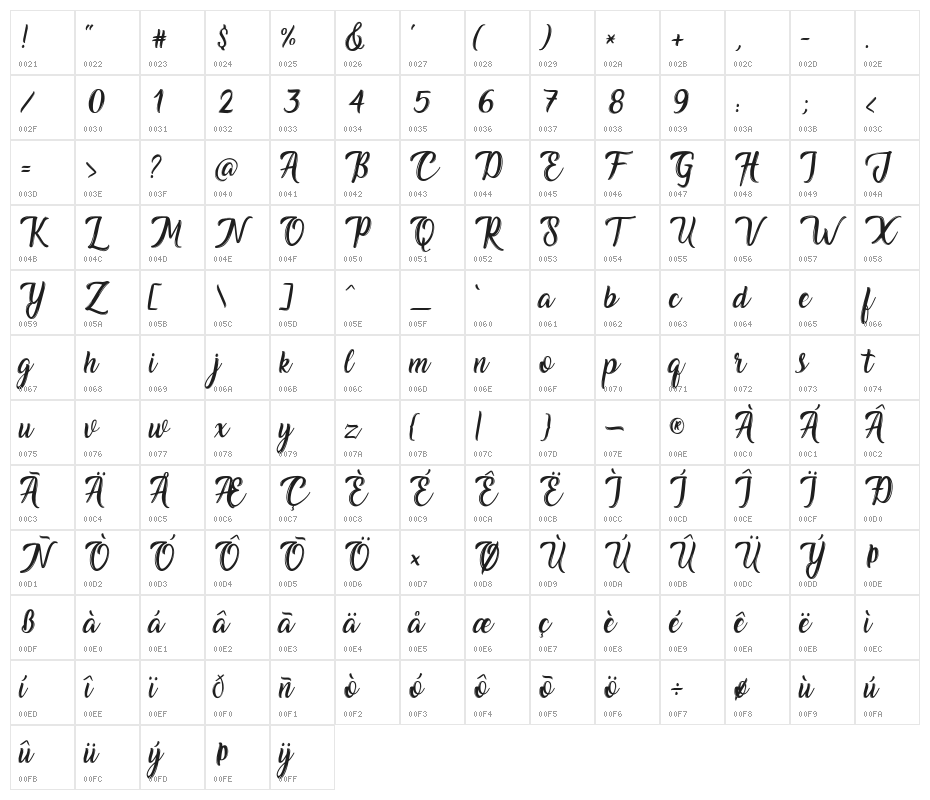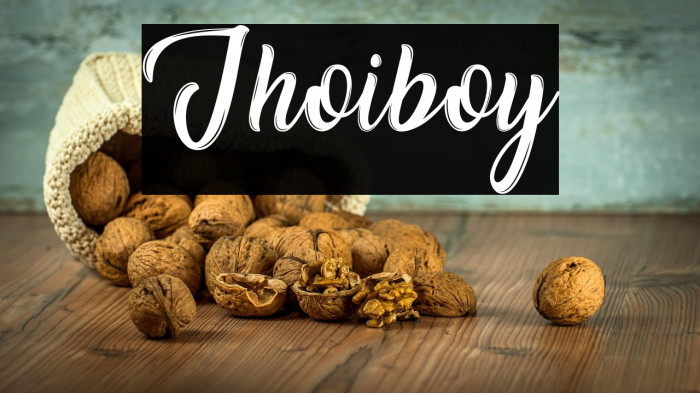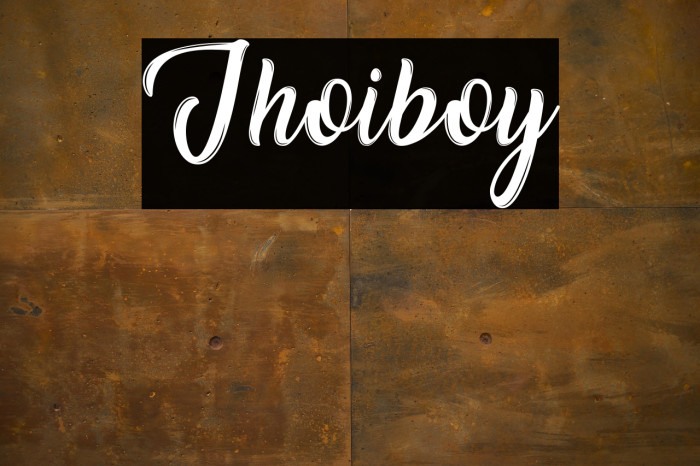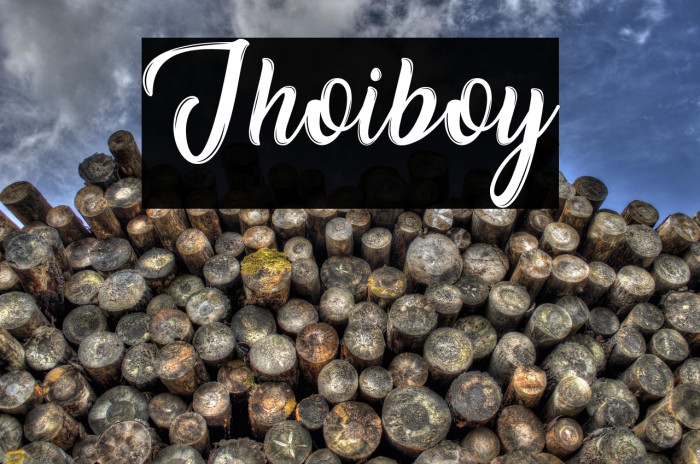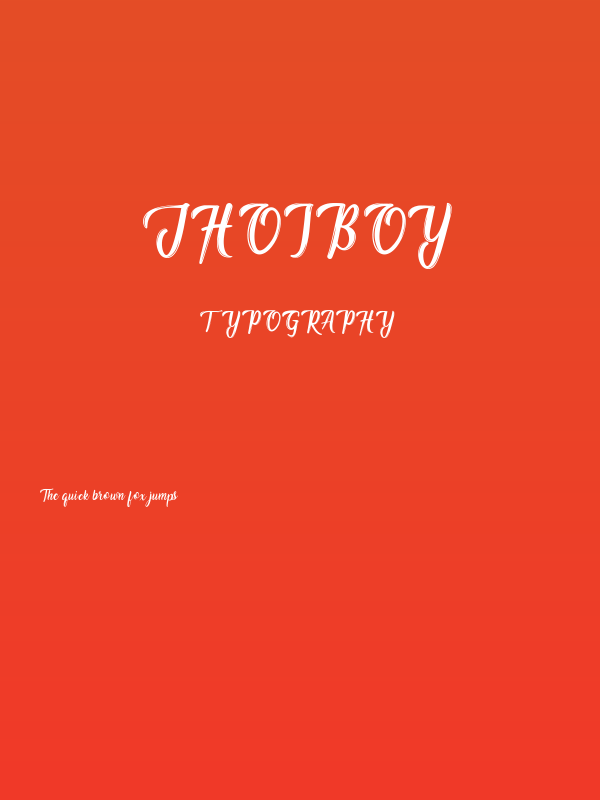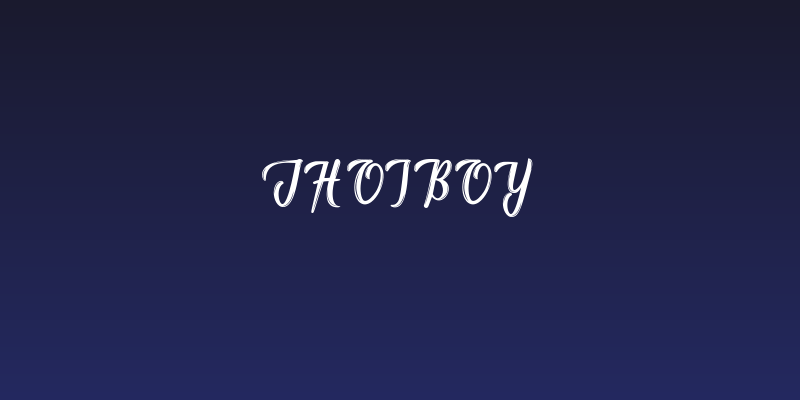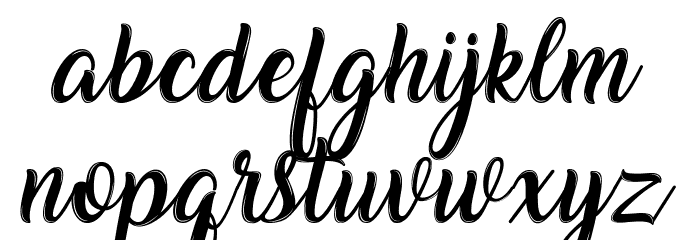
Jhoiboy Font
Jhoiboy Description
This font features a flowing, cursive style with elegant, sweeping strokes that convey a sense of sophistication and grace. The uppercase letters are bold and slightly slanted, giving them a dynamic appearance, while the lowercase letters maintain a consistent fluidity that enhances readability. The numerals are distinct, with a slight slant that matches the overall style, and the special characters are well-integrated, maintaining the font's cohesive look. The font's design is reminiscent of classic calligraphy, making it suitable for projects that require a touch of elegance and tradition.
| Proposed Projects | Ideal for wedding invitations, greeting cards, elegant branding, and decorative headlines. |